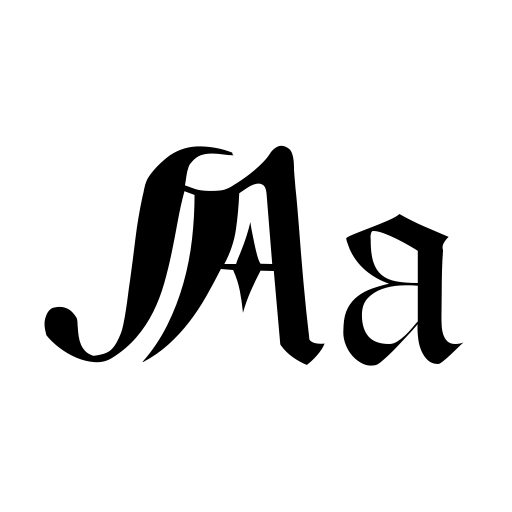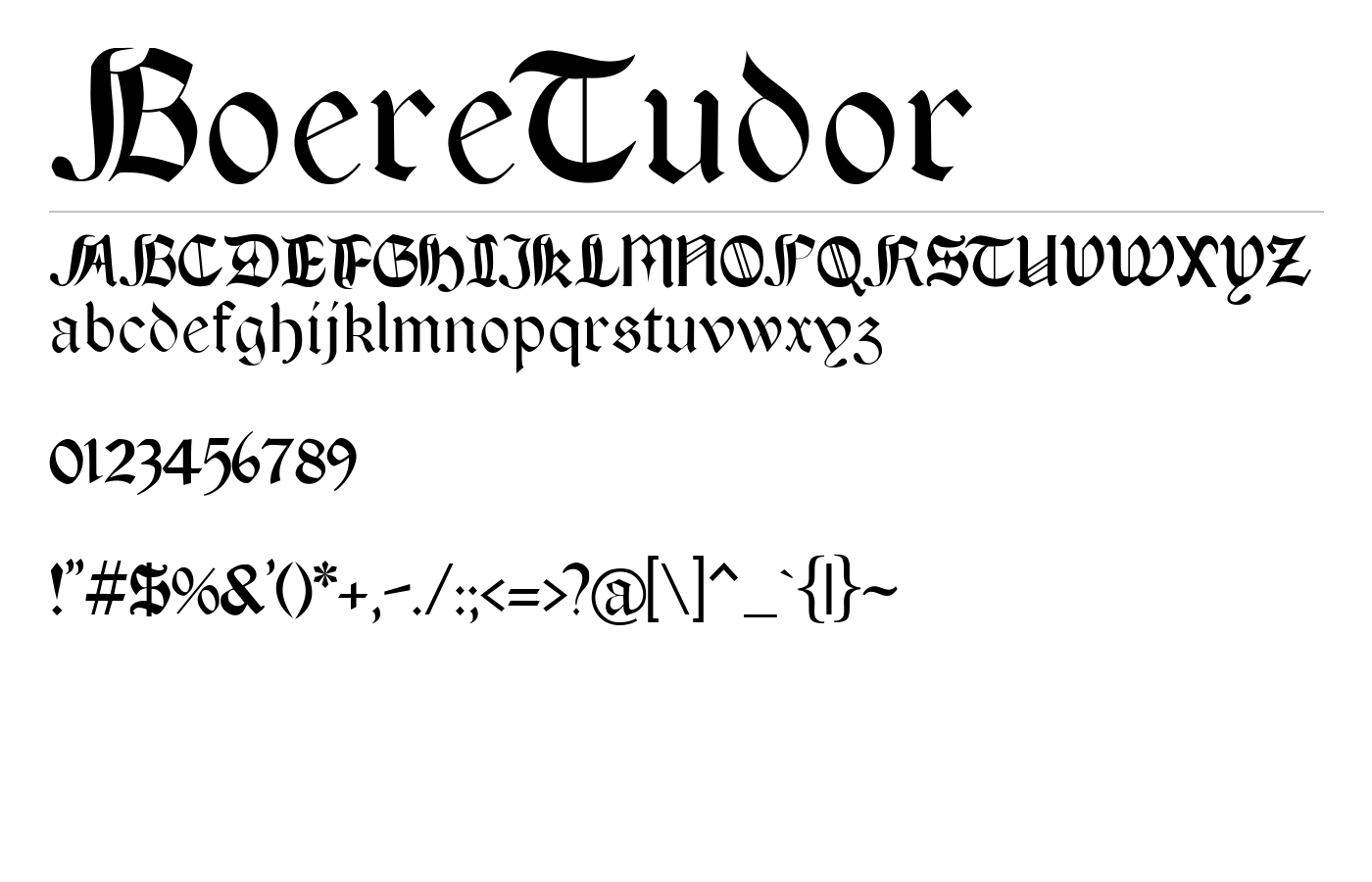
BoereTudor is a blackletter serif font that brings a historic, medieval feel with its ornate, sharp strokes and distinctive angular forms. It features a medium weight with high contrast between thick and thin lines, bracketed serifs, and a mix of uppercase and lowercase characters with unique flourishes, making it ideal for projects aiming to evoke tradition, heritage, or a gothic atmosphere. This font works best in headlines, logos, and editorial designs where a strong, vintage impression is desired.
BoereTudor Font
About BoereTudor Font